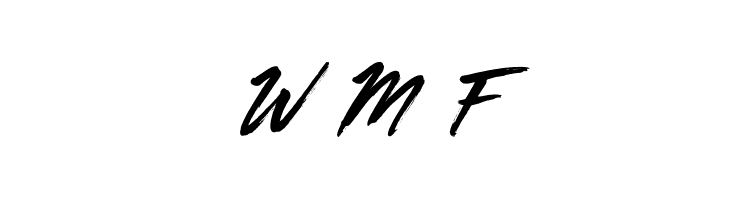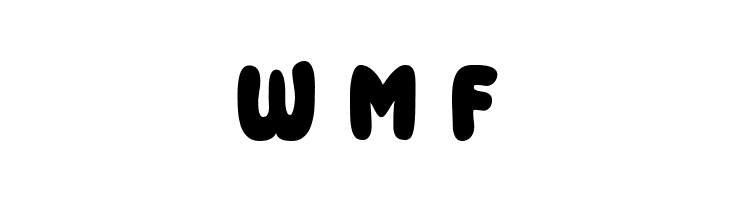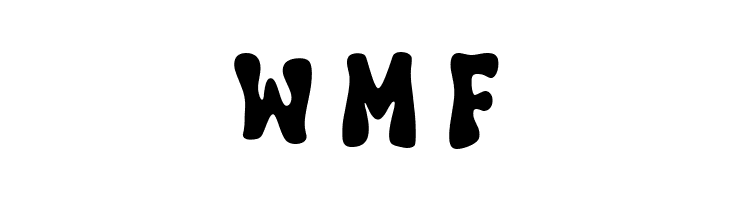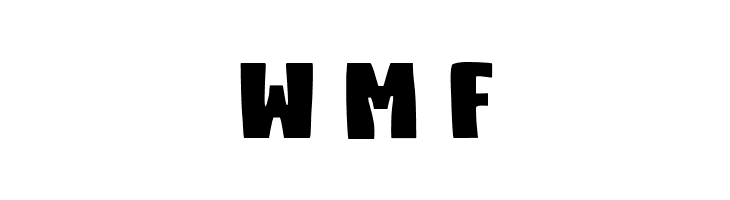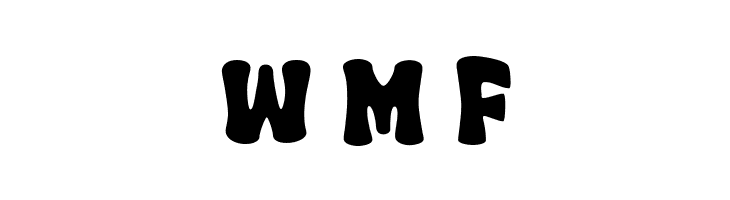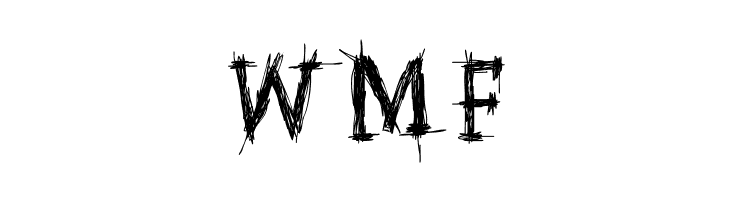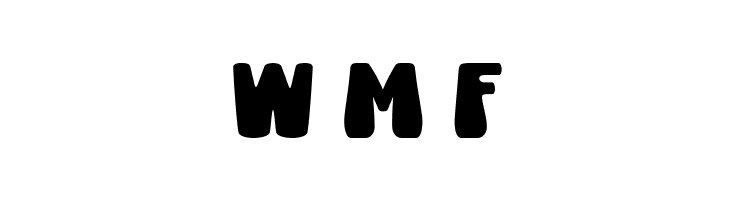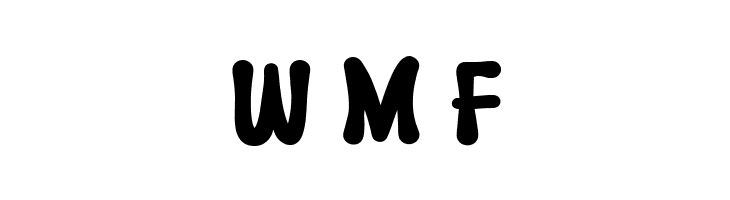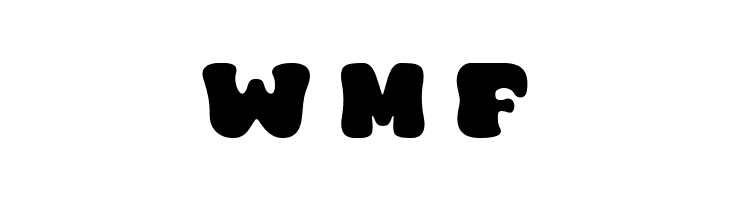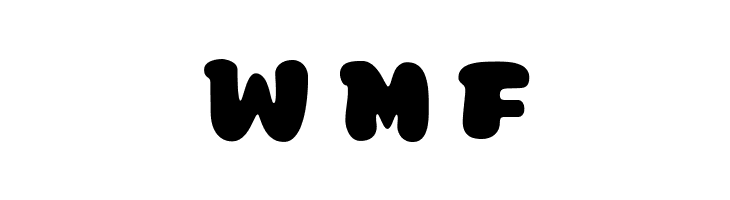
A bold, chunky font with rounded edges and a playful style.
A rugged, distressed font with jagged edges and uneven strokes.
A bold, rounded, and playful font with a modern and friendly style.
A playful, bold font with rounded, bubbly characters.
A bold, sporty font with integrated ball motifs for a playful and energetic look.
A bold, playful font with book-themed characters, perfect for educational and children's projects.
A bold, rounded font with a playful dotted pattern, perfect for creative projects.
A playful, bold font with leaf-like accents on each character, perfect for fun and creative projects.
A bold, playful font with paper plane decorations, perfect for creative projects.
A playful, ruler-themed font with bold, rounded letters and medium contrast.
A bold, playful font with thick, rounded characters and a lively feel.
A bold, playful font with rounded, bubbly characters perfect for decorative use.
A bold, rounded, and playful font with a chunky appearance.
A playful, bold font with rounded, bubbly characters.
A bold, playful font with rounded, bubble-like characters and a retro-modern style.
A bold, shadowed font with a playful, three-dimensional style.
A bold, playful font with a bubbly, organic design and retro vibes.
A bold, playful font with rounded, thick strokes and a bubbly appearance.
A flowing, cursive script font with elegant loops and swirls.
A bold, playful font with a glossy, bubbly design and shiny highlights.
A playful and expressive brush script font with bold, rounded characters.
A bold, hand-drawn font with a sketchy, expressive style.
A geometric, pixelated font with a modular and digital aesthetic.
A bold, pixelated font with a retro, arcade-inspired design.
A bold, rounded font with a playful, retro style.
Silhouette-based decorative font with superhero themes.
A bold, brush-style script font with dynamic, energetic strokes.
A bold, playful font with rounded, bubbly characters.
A bold, geometric font with a futuristic and dynamic style.
A bold, italic font with a futuristic and dynamic style.
A bold, chunky font with a playful, stone-like appearance.
A bold, playful font with rounded edges and a bubbly appearance.
Highly stylized, illustrative display font using video game character art.
A bold, geometric font with a futuristic and industrial design.